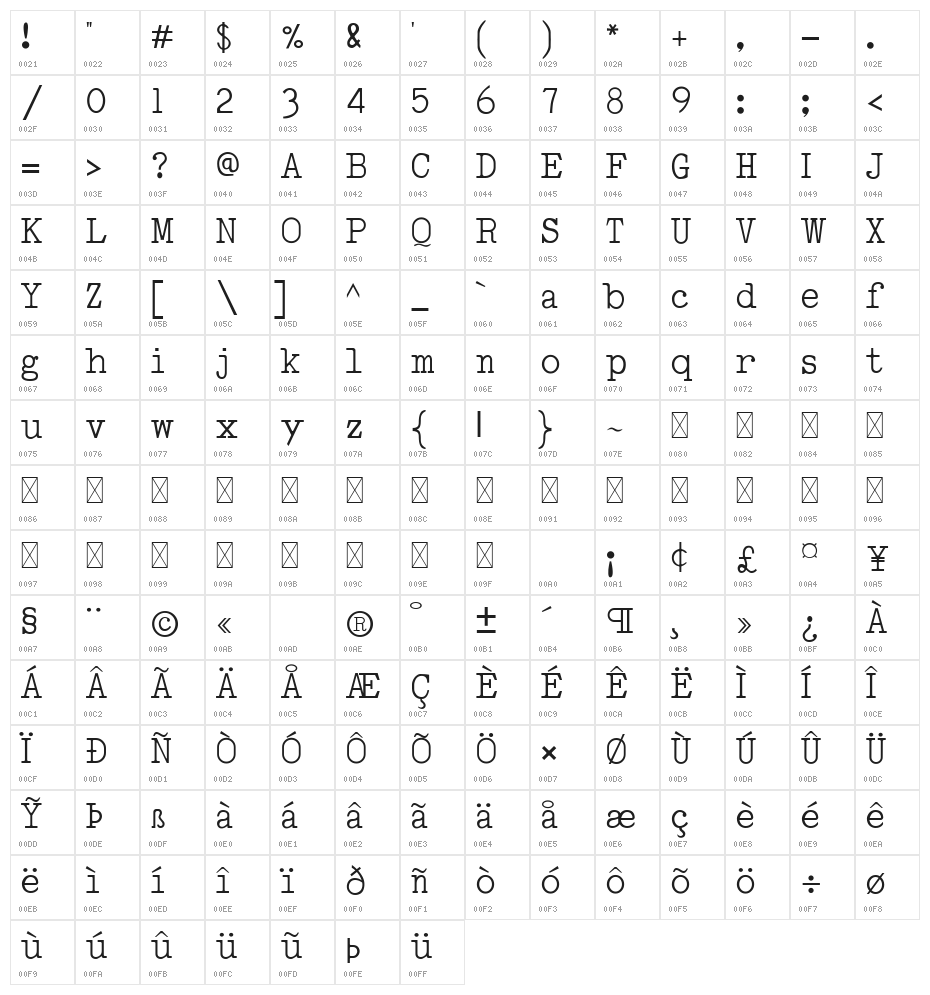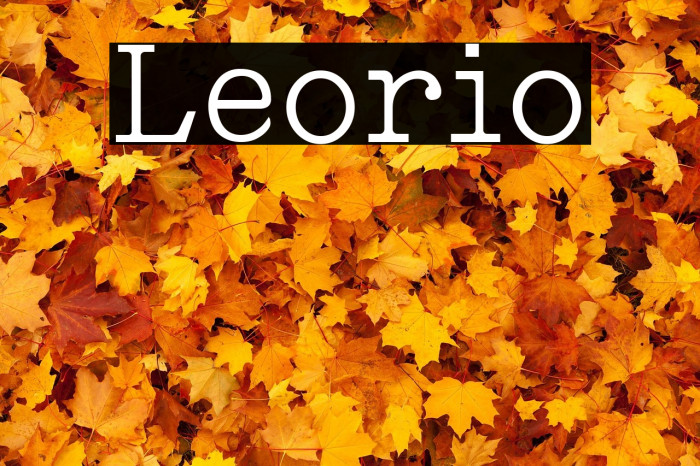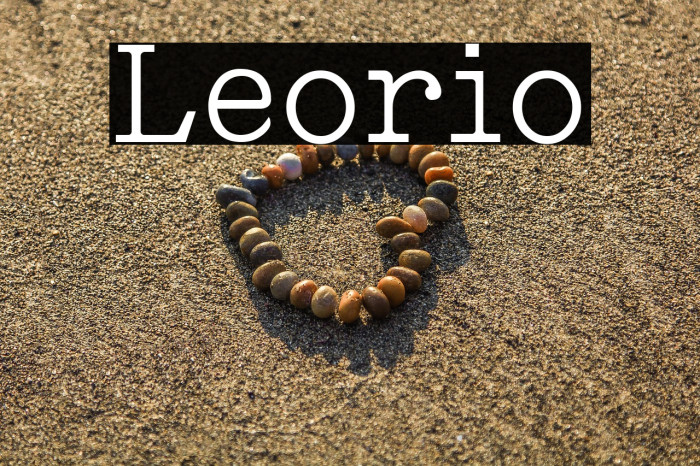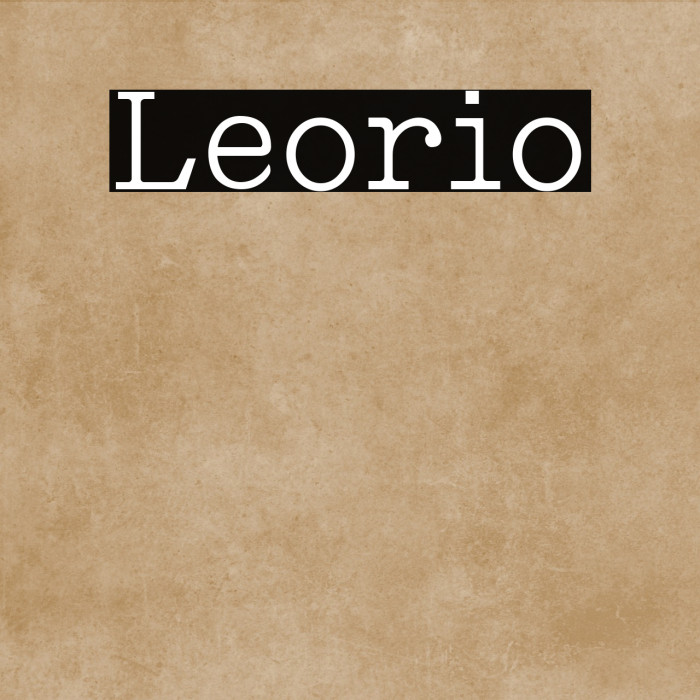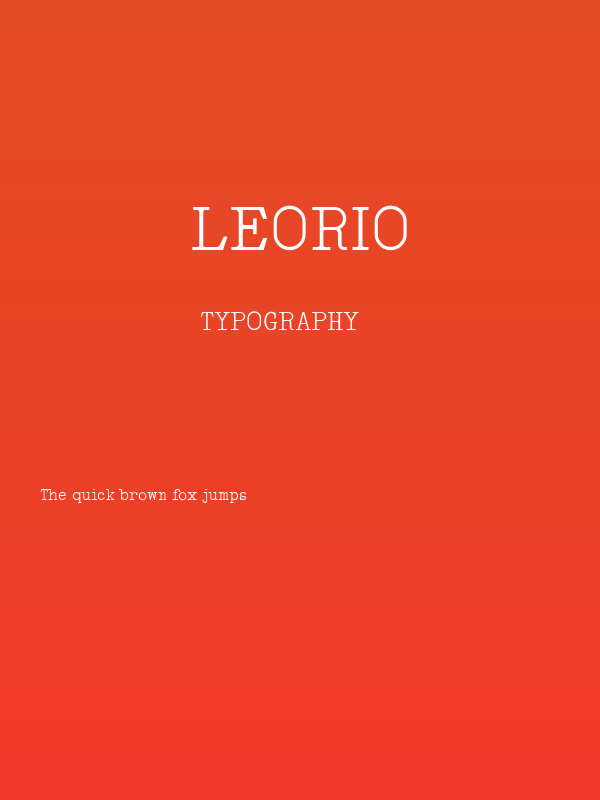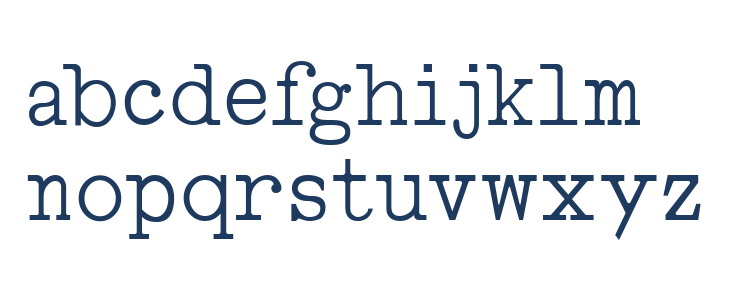
Leorio Font
Leorio Description
This font features a classic serif style with a modern twist, characterized by its clean and structured appearance. The uppercase letters are bold and prominent, while the lowercase letters maintain a consistent and balanced form. The numerals are clear and easily distinguishable, making them suitable for various applications. Special characters are well-defined, adding versatility to the font. The overall design is elegant yet functional, making it ideal for both formal and casual settings.
| Proposed Projects | Ideal for editorial design, book covers, formal invitations, and branding projects. |